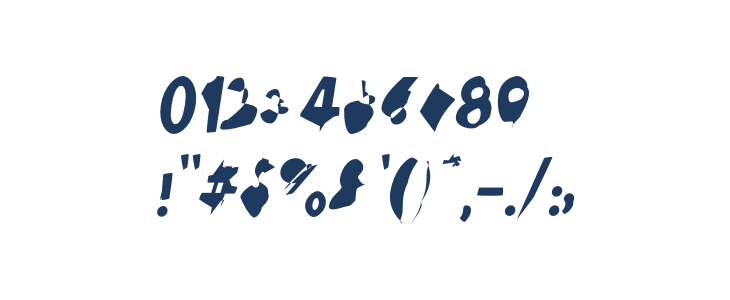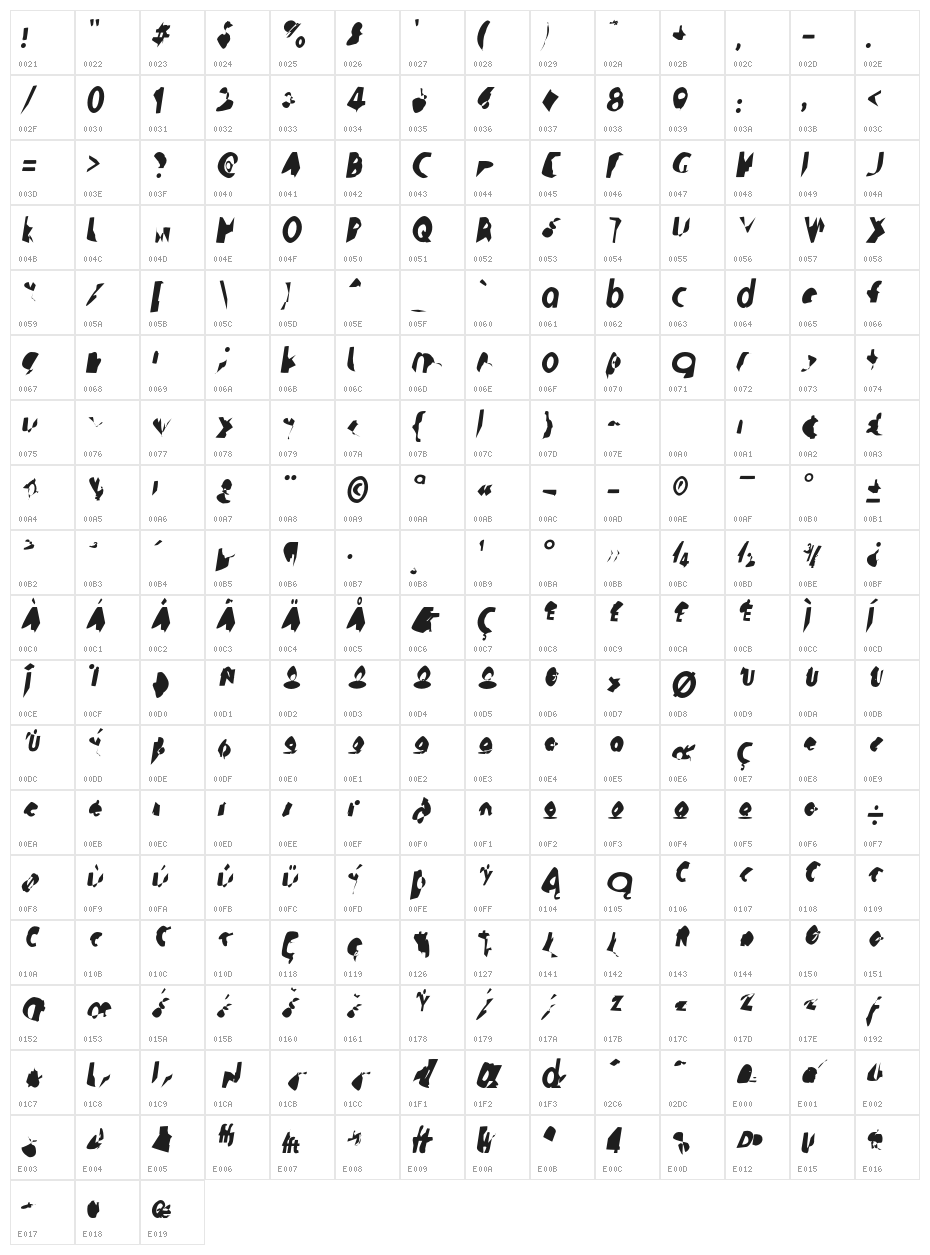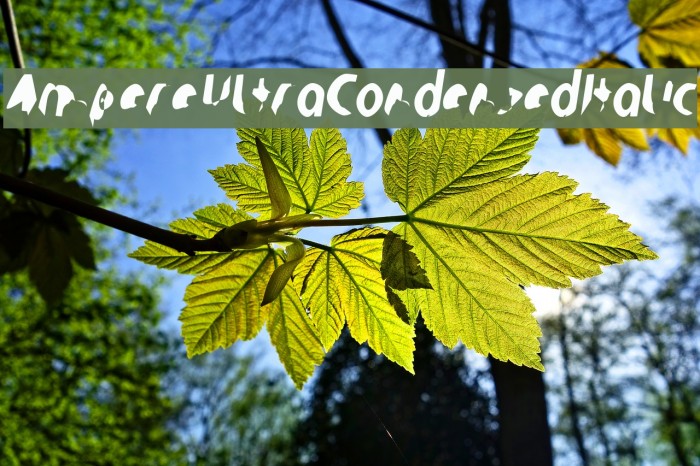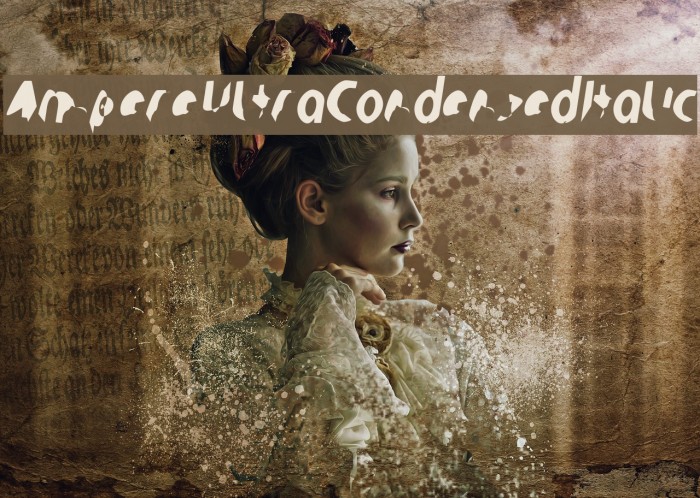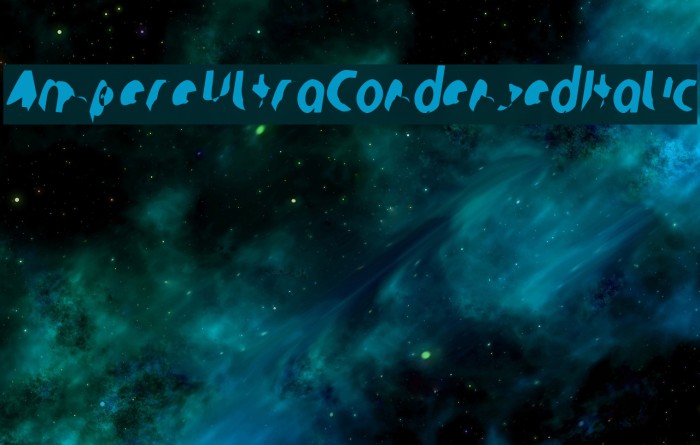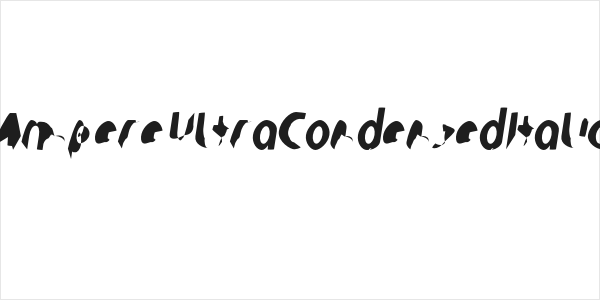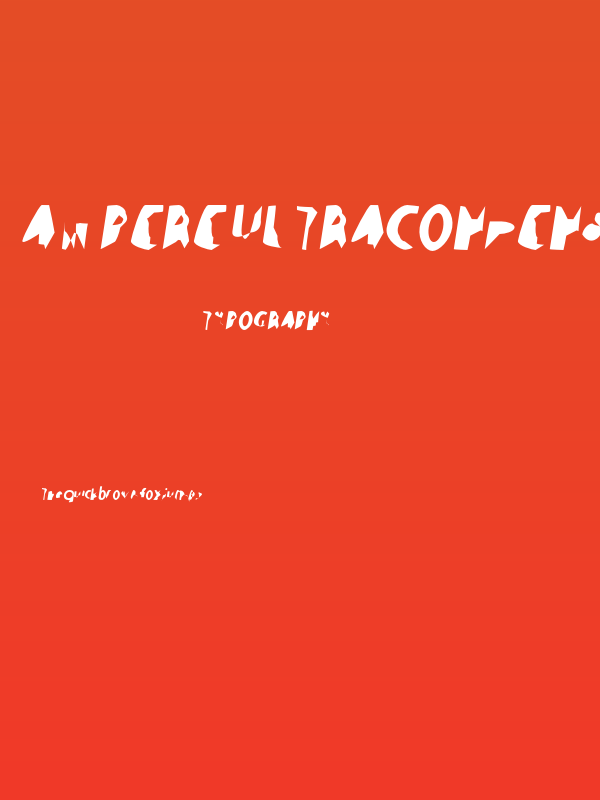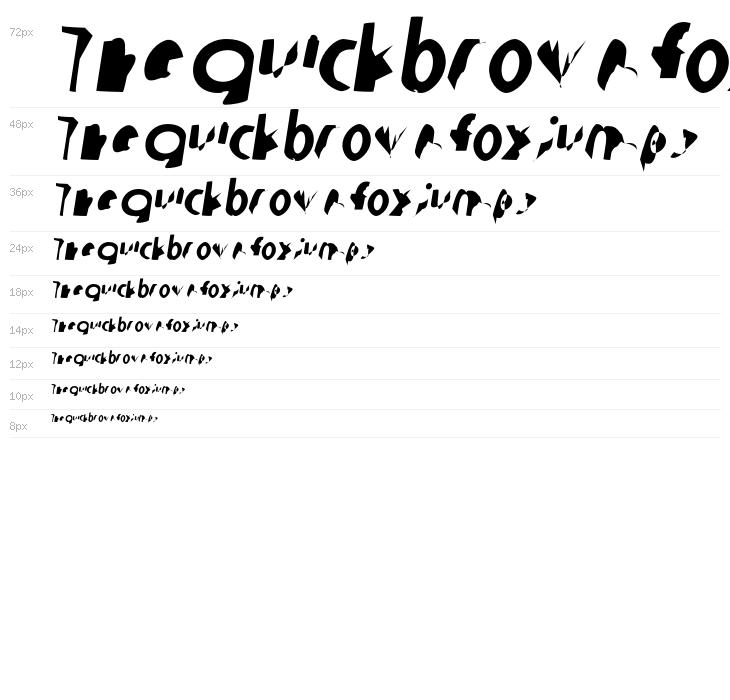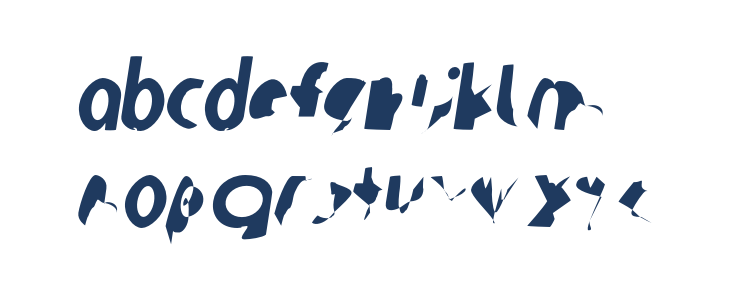
Ampere UltraCondensed Italic Font
Ampere UltraCondensed Italic Description
This font exhibits a highly stylized and artistic design, characterized by its ultra-condensed and italicized form. The letters are bold and dynamic, with sharp angles and unique cuts that create a sense of movement and energy. The uppercase and lowercase letters maintain a consistent style, with the lowercase being slightly more abstract. Numbers and special characters follow the same design principles, ensuring uniformity across the typeface. This font's distinctive appearance makes it stand out, ideal for creative and bold design projects.